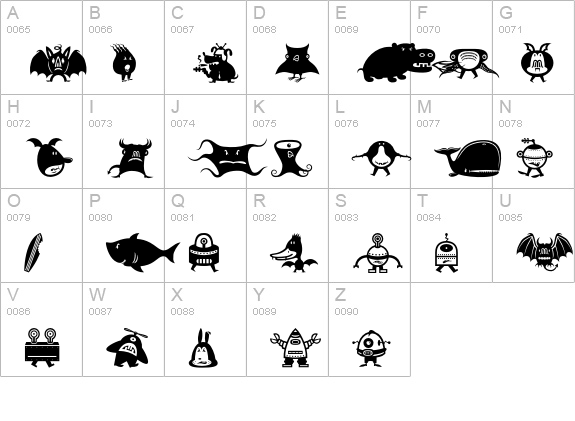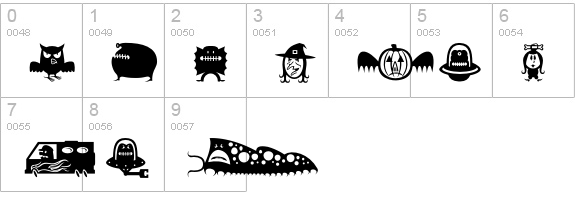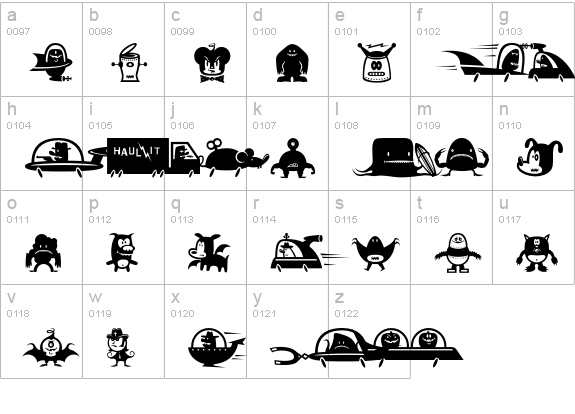
Eekers Font Details
Eekers font is a stunning display typeface that exudes creativity and uniqueness. With its intricate details and playful curves, this font is sure to catch the eye and captivate any audience. Eekers font is perfect for a wide range of design projects, from logos and branding to packaging and posters. Its versatility allows it to be used in various contexts, making it an ideal choice for both digital and print mediums. What sets Eekers font apart is not only its aesthetic appeal, but also its accessibility. It is a free font, meaning that it can be downloaded and used without any limitations. FontsMarket.com offers this incredible typeface for free, making it readily available to designers and enthusiasts alike. Whether you're a professional designer looking to add a touch of whimsy to your projects or an aspiring creator in need of a standout font, Eekers font is the perfect choice. Its bold and playful nature is guaranteed to elevate your designs and leave a lasting impression. So why wait? Head over to FontsMarket.com and download Eekers font for free today!